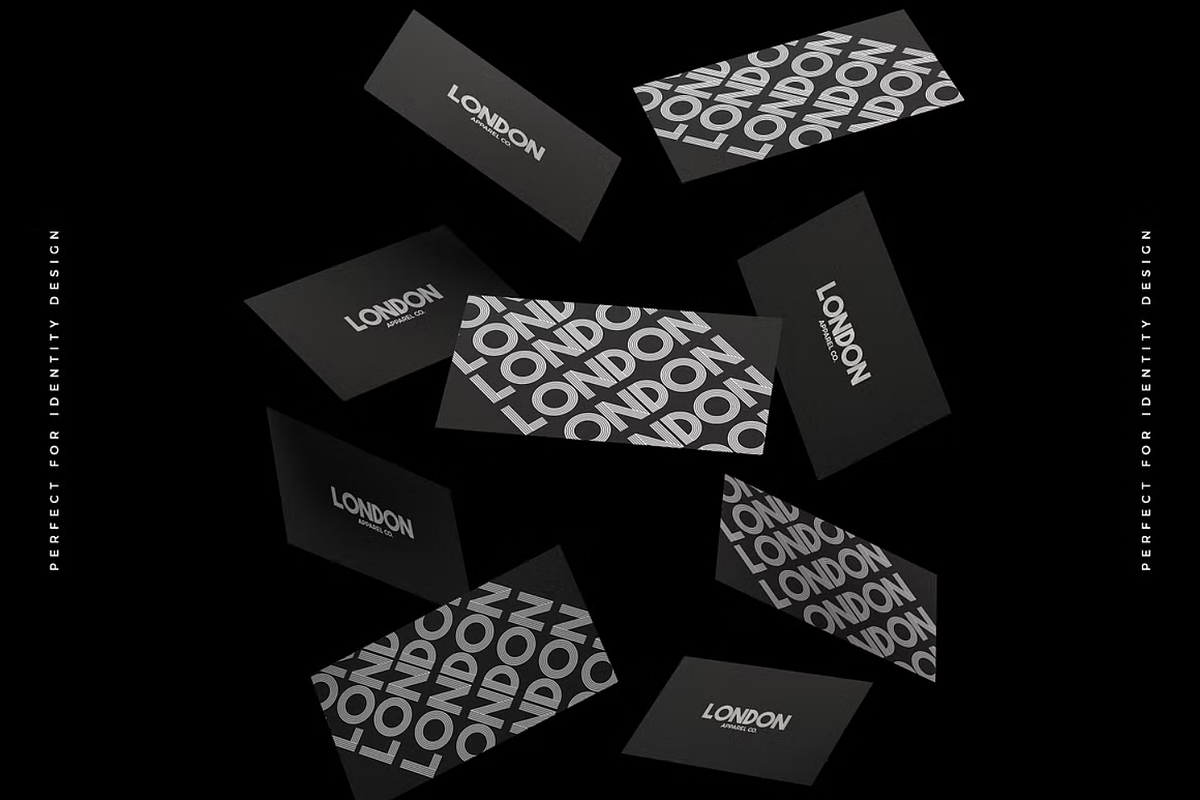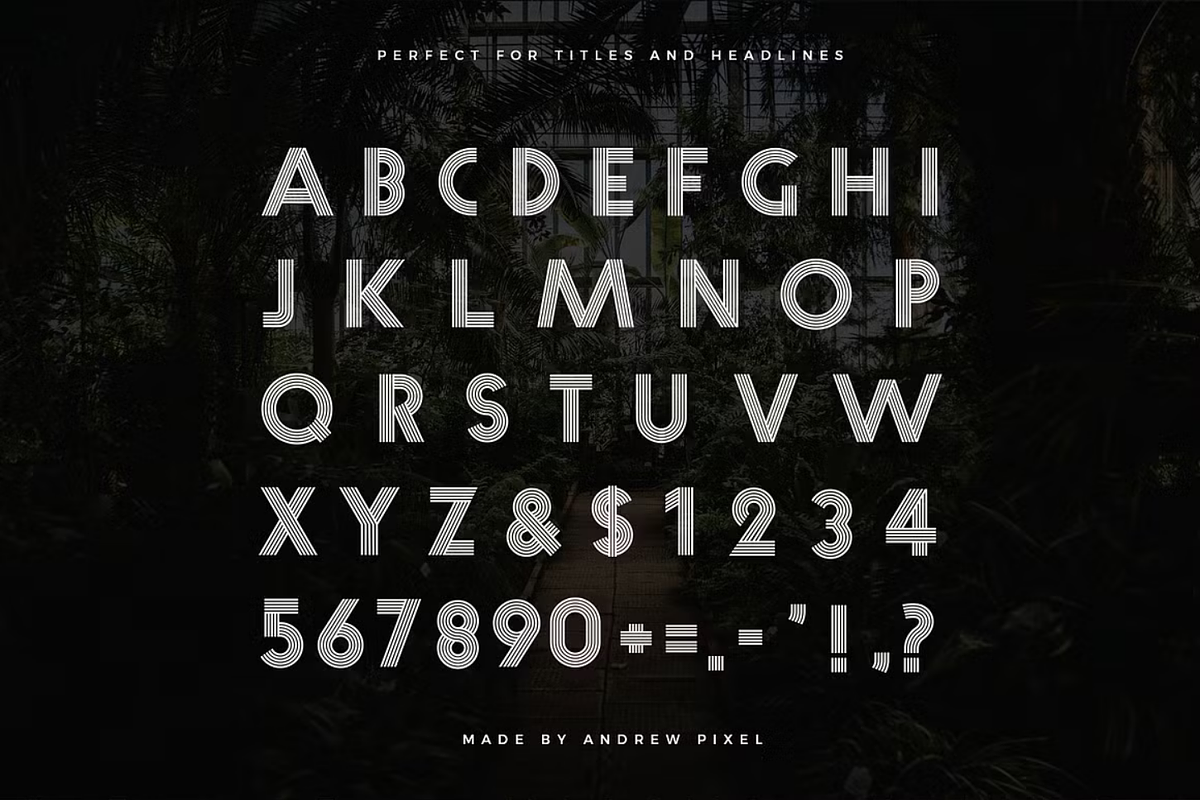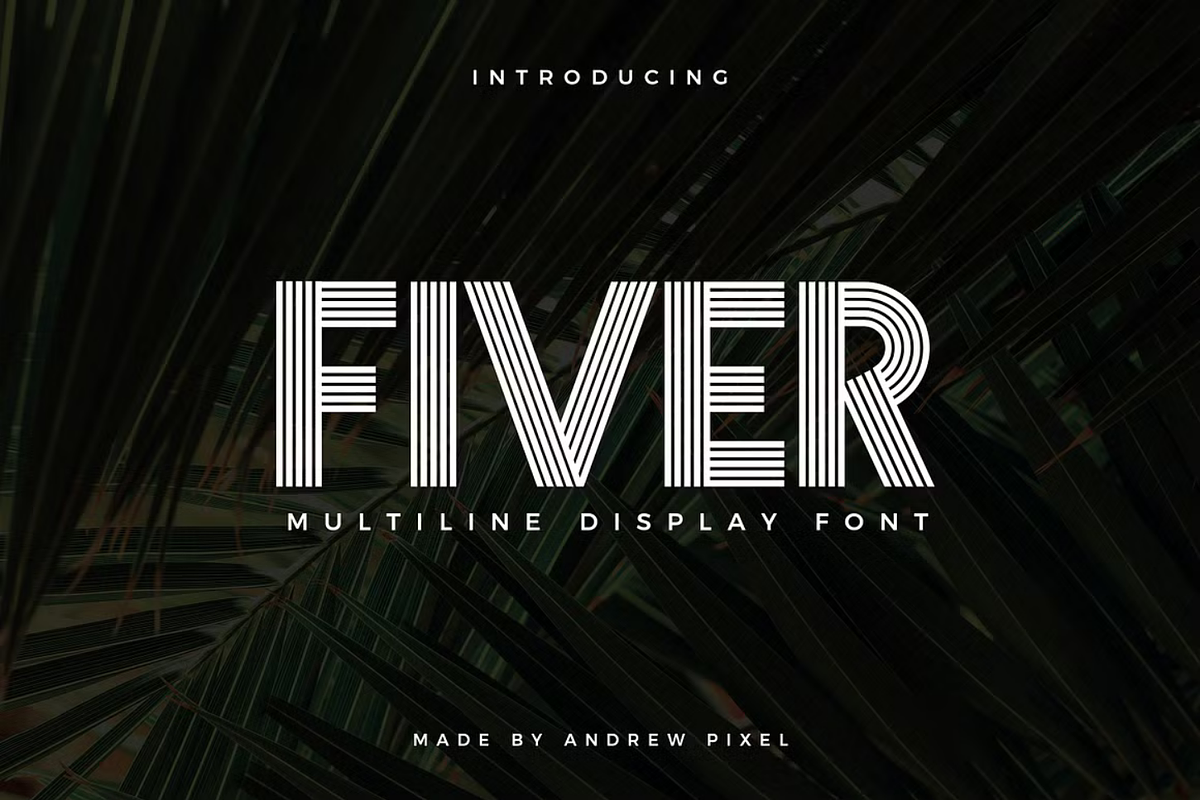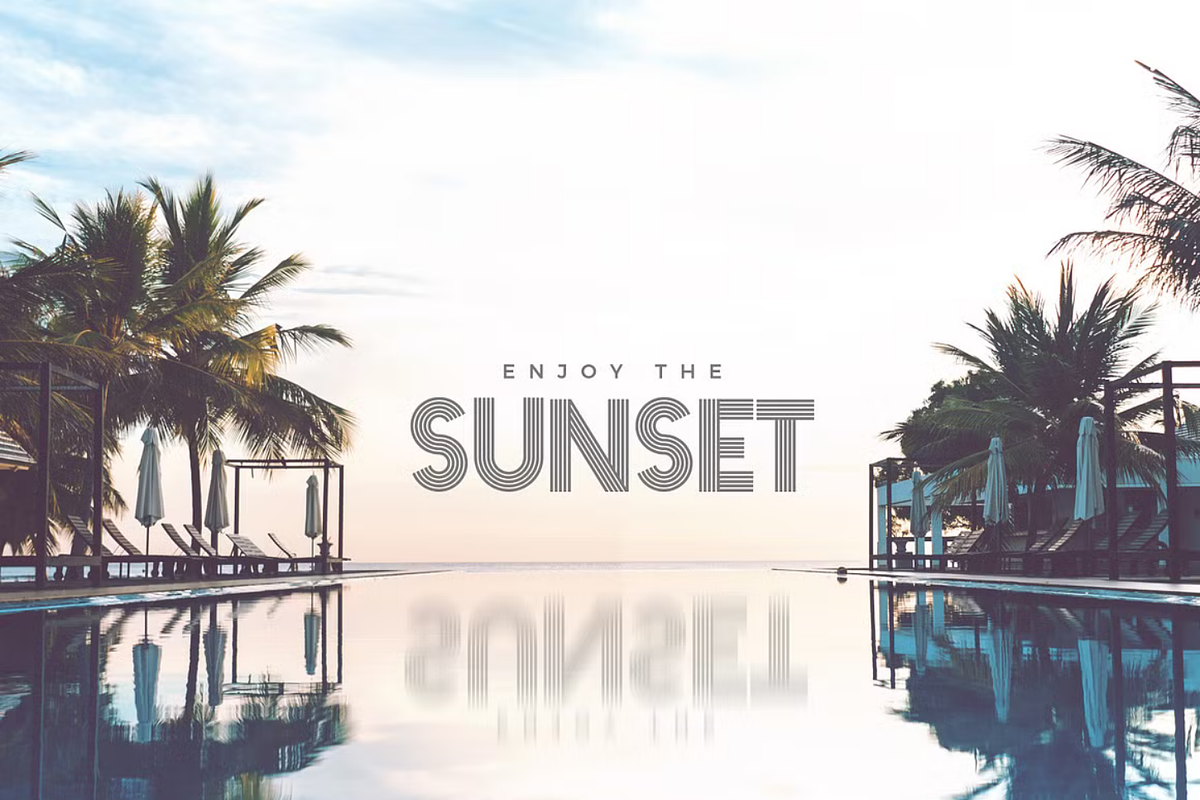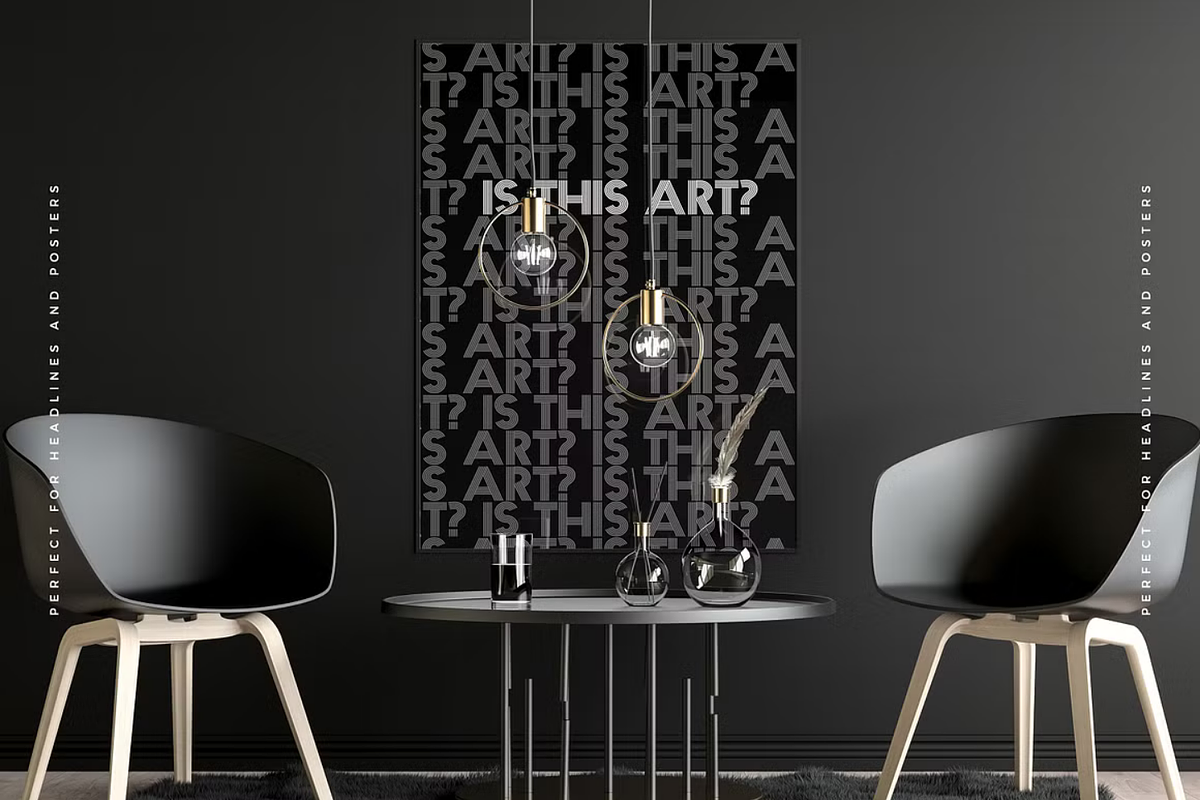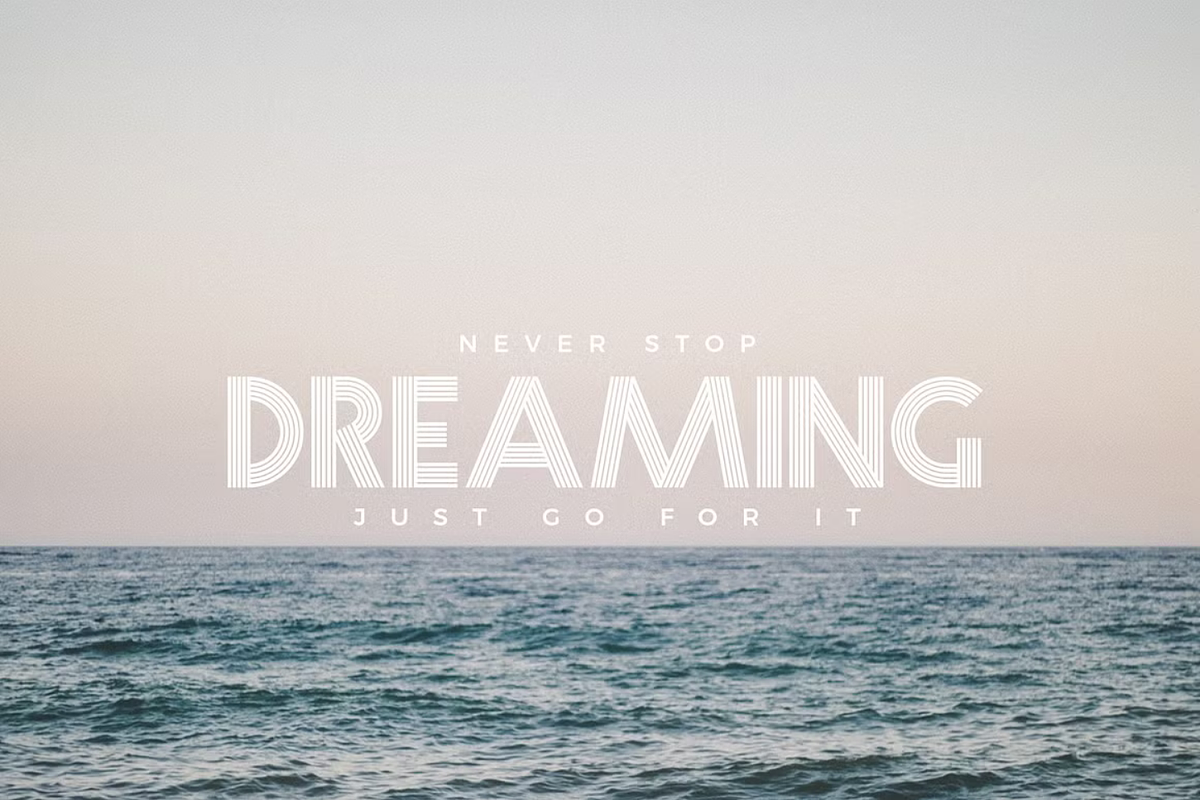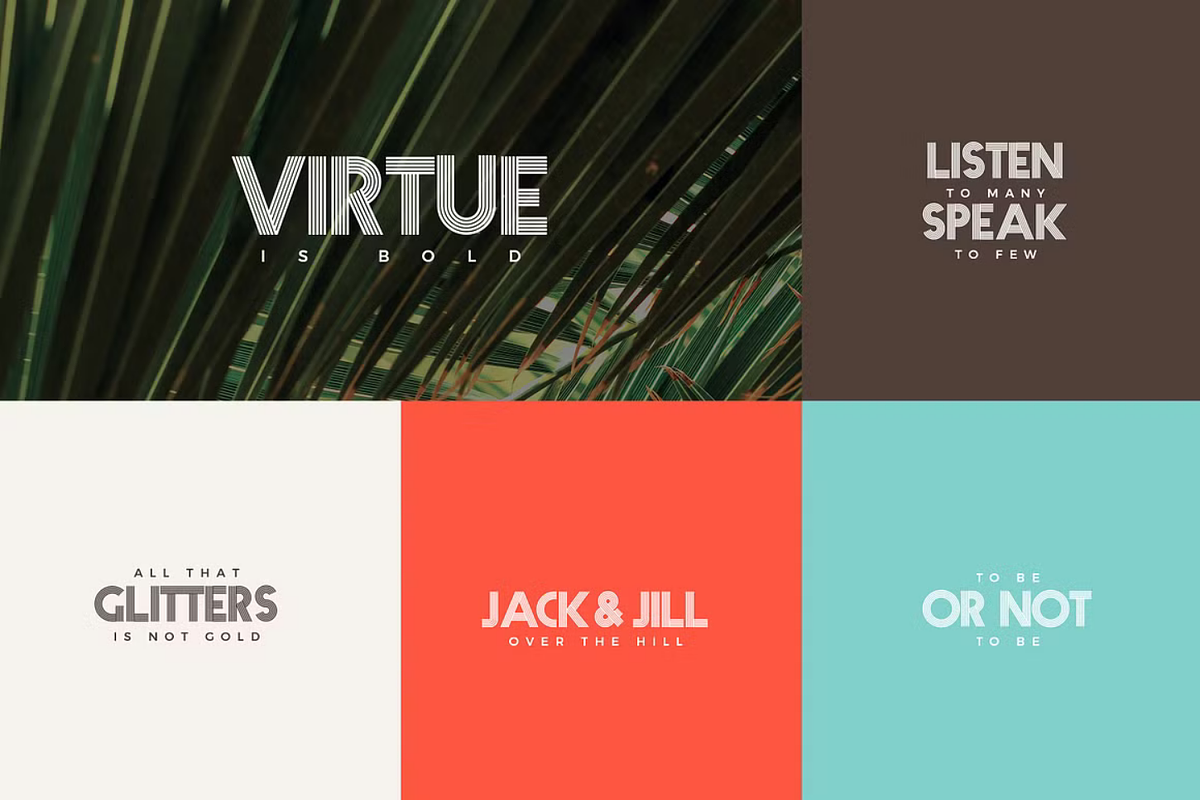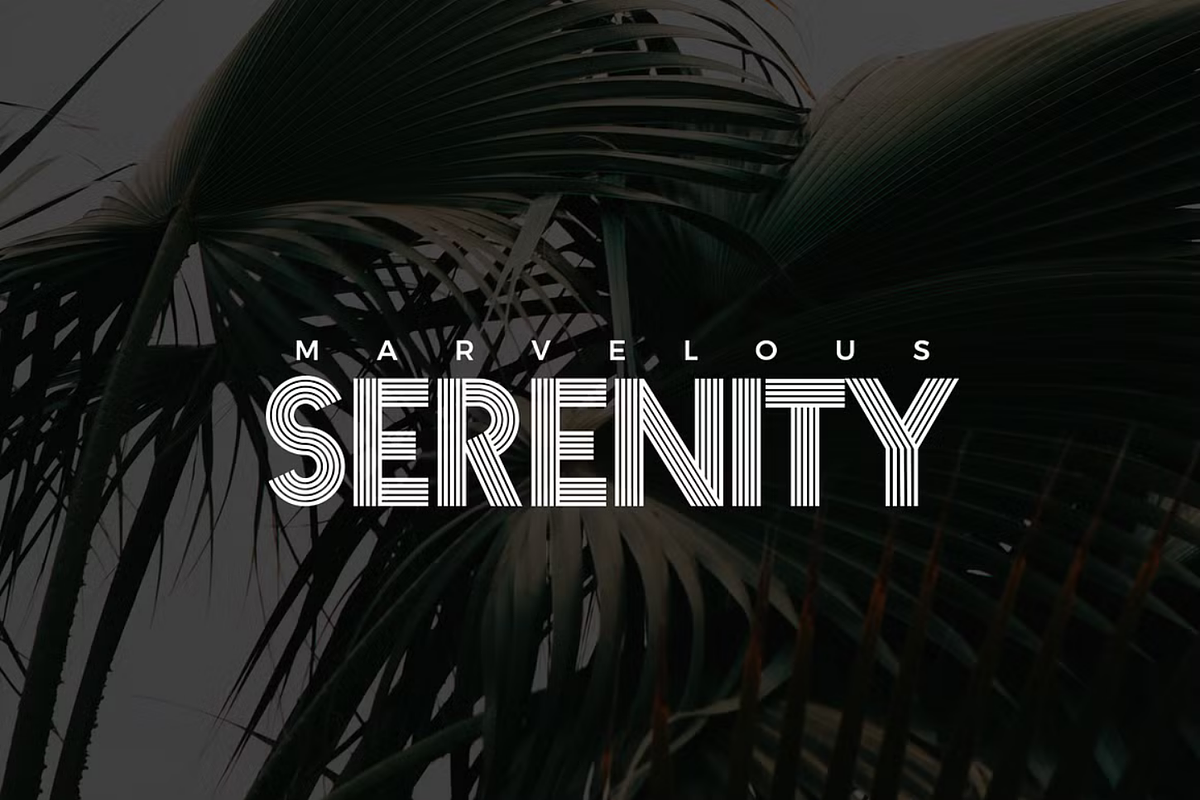
Fiver - Multiline Display Font
Introducing Fiver - A multi-line display font for headlines and logo design
The font combines the best parts of both the vintage and modern into a single style.
The font is best suited for large display sizes such as logos, quotes, packaging, merchandise, headlines, advertising, and more.
Pairs perfectly with any modern Sans-Serif font, such as Montserrat (used in the previews)